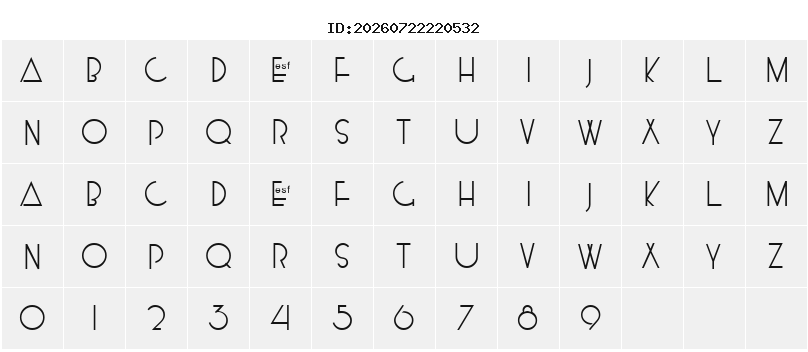
Mossy Preview
• Font Name: Mossy
• Full Font Name: Mossy
About Mossy.ttf
Mossy.ttf is a modern, elegant sans-serif font designed for ultimate readability and visual harmony. Perfect for branding, headlines, web design, and print materials.